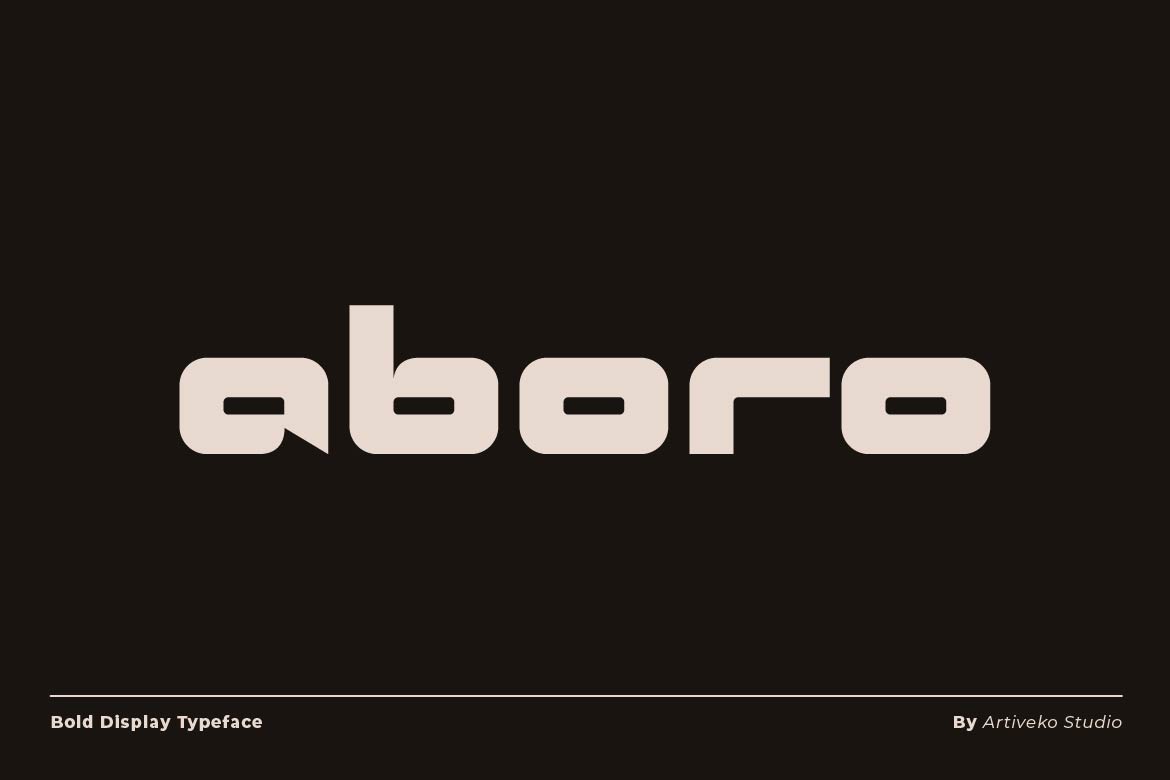
- Aboro – Strong Bold Display Font for Powerful Headlines
Aboro is a strong and bold display typeface designed to deliver maximum visual impact. With heavy weight, solid structure, and confident letterforms, Aboro commands attention in every composition—making it perfect for headlines, posters, logos, branding, packaging, and promotional campaigns.
Its powerful presence creates a sense of authority and energy, ideal for modern advertising, streetwear, sports visuals, and bold brand identities. Despite its strength, Aboro maintains clarity and readability, ensuring your message remains clear even in high-impact layouts.
Aboro is not just a font — it’s built to dominate the visual space.